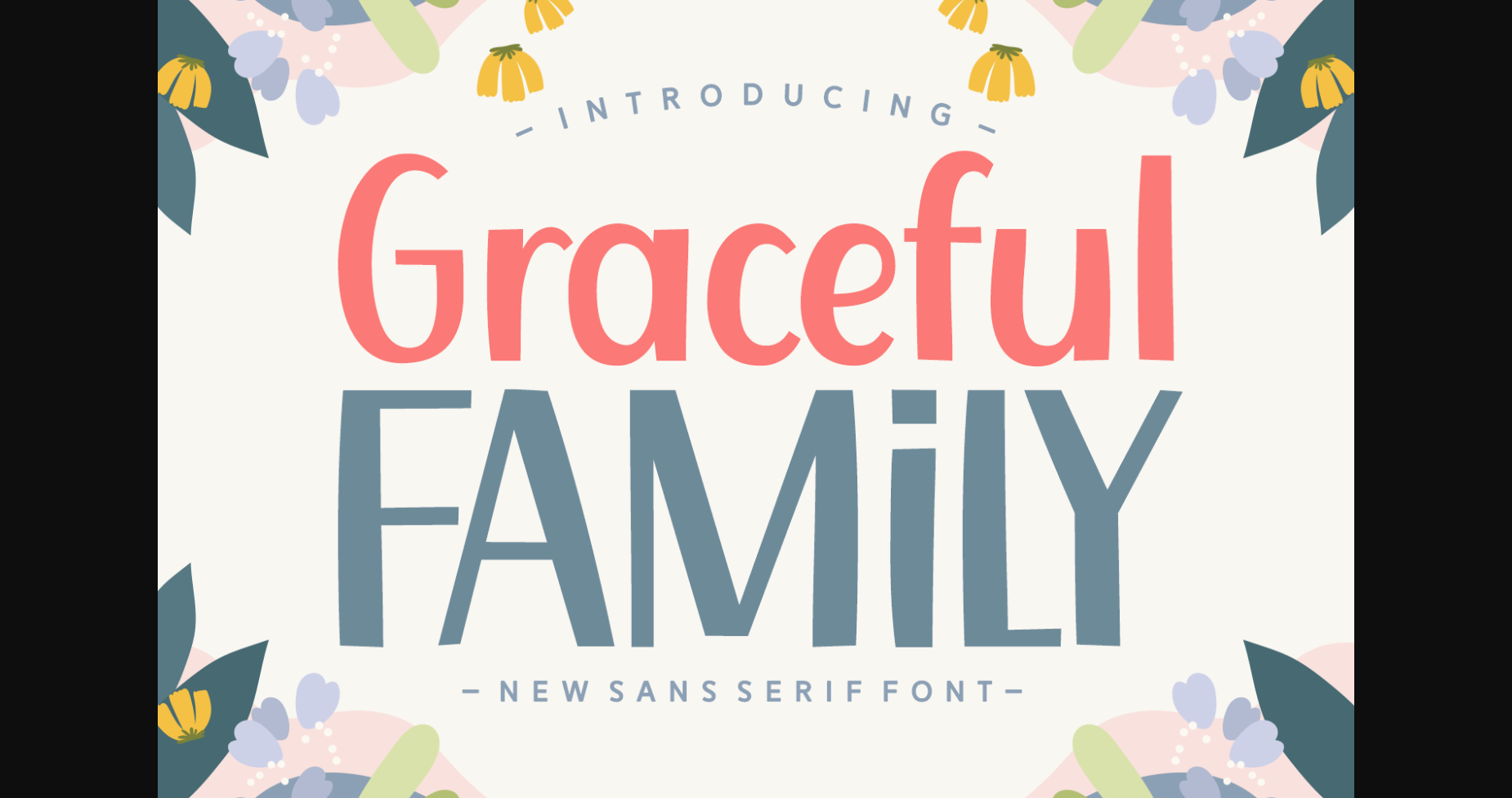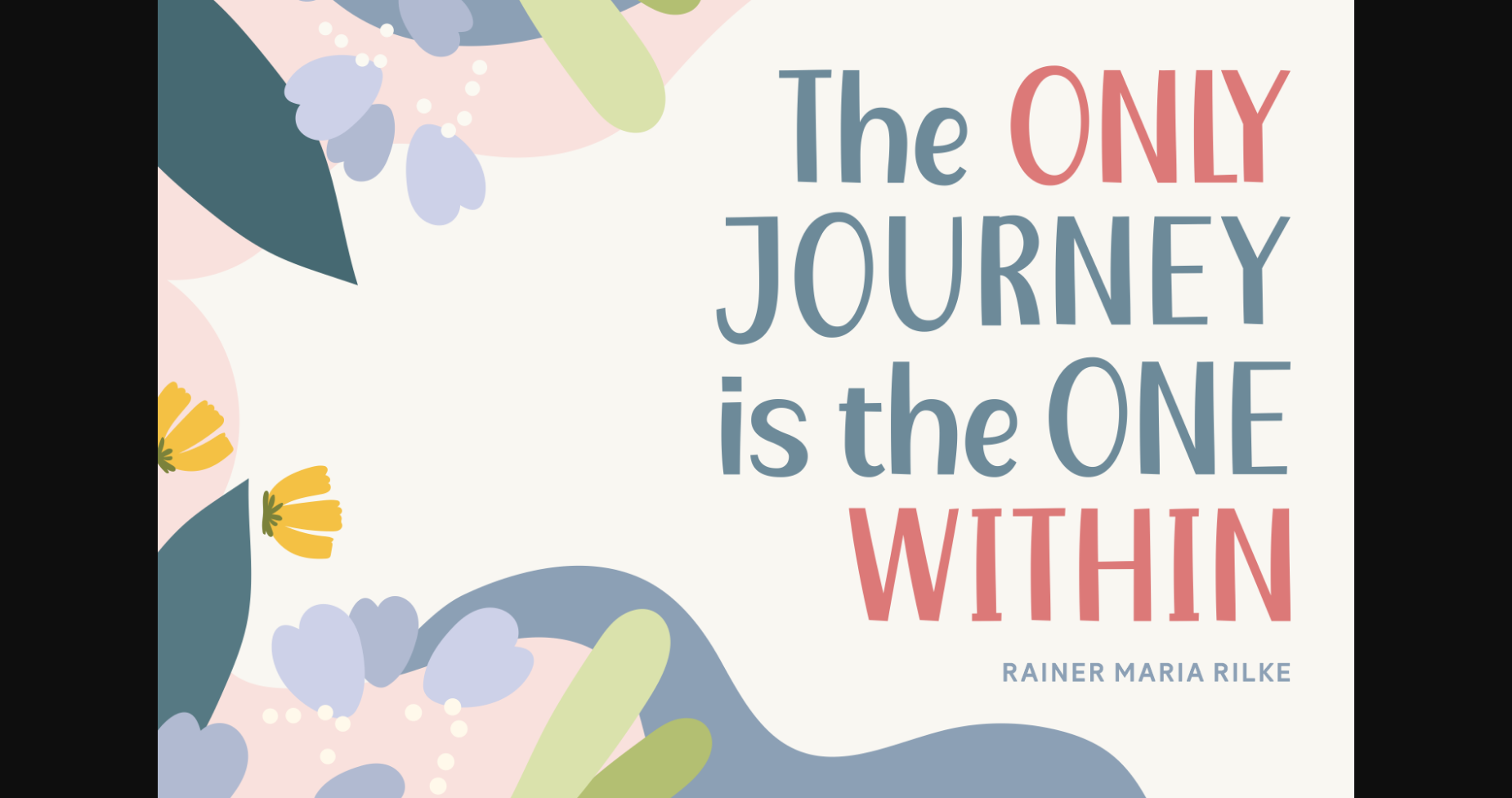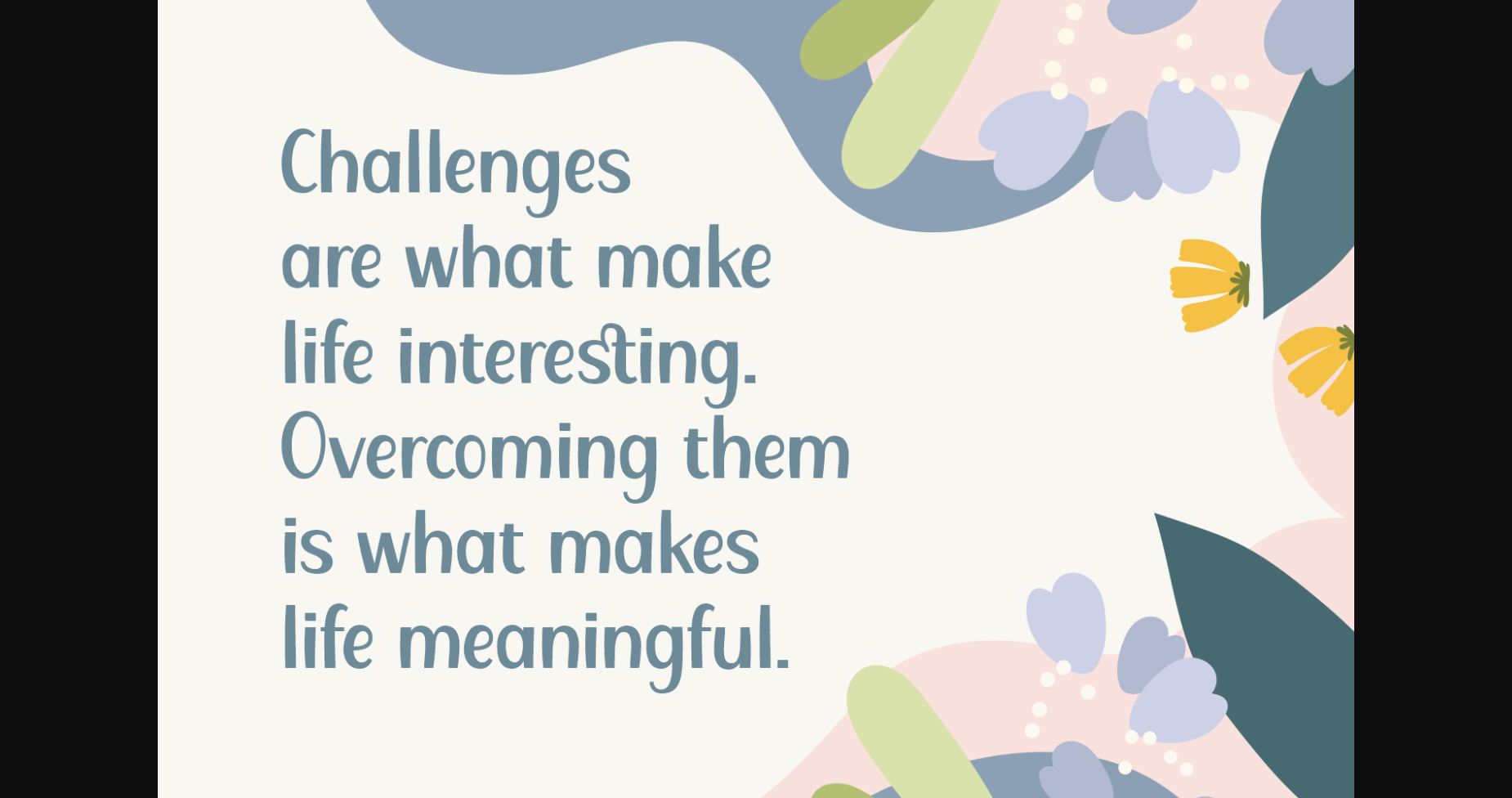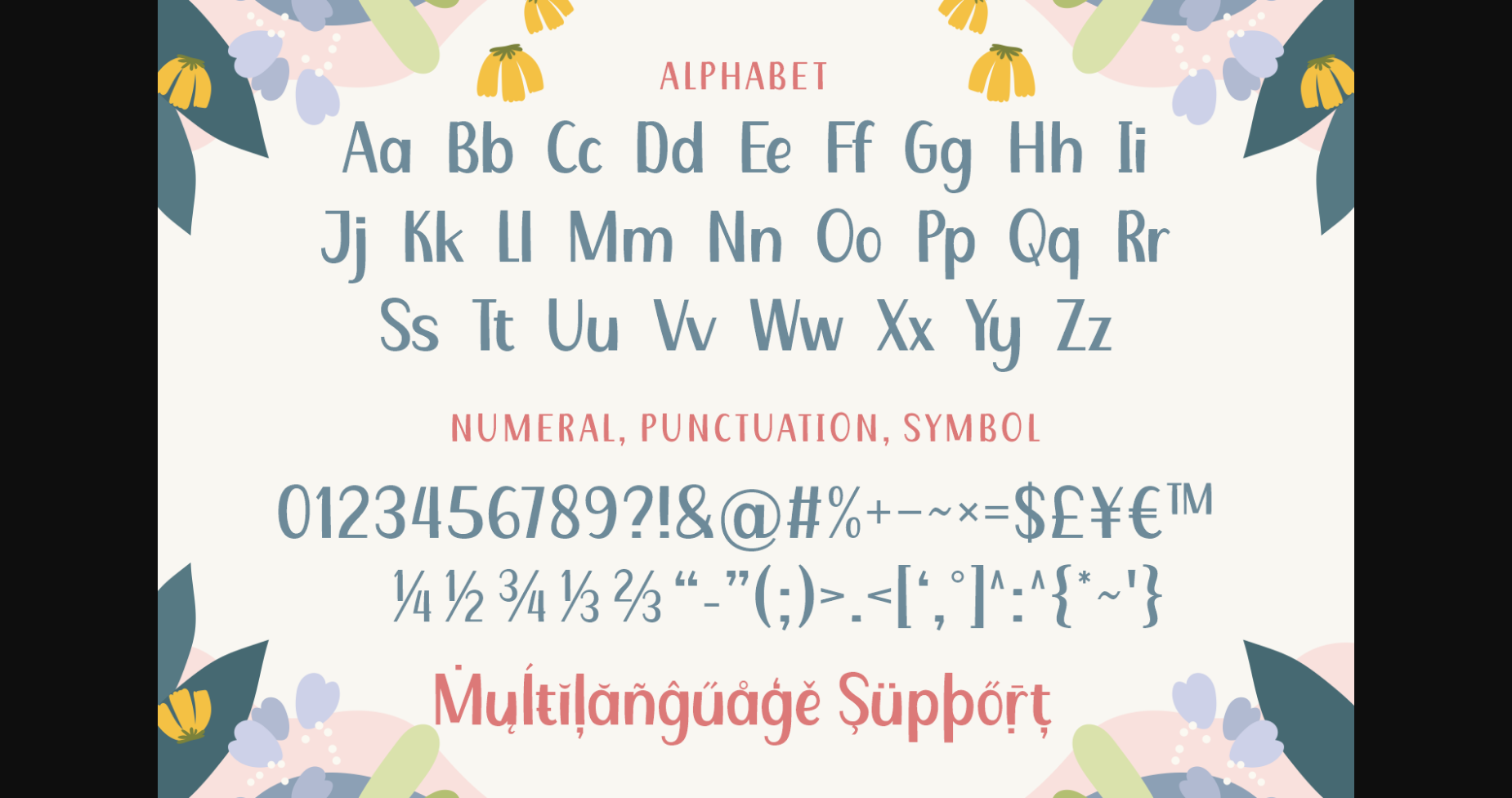
HomeSans Serif FontsGraceful Family Font Sans Serif Fonts Graceful Family Font FacebookXPinterestWhatsApp 1 of 6 ... Graceful Family Font Poster 2... Graceful Family Font Poster 3... Graceful Family Font Poster 4... Graceful Family Font Poster 5... Graceful Family Font Poster 6... About Graceful Family Font Graceful family is a simple and versatile san serif font. This typeface is an excellent staple to have in your library for crafts, prints, digital designs, and more! DOWNLOAD NOW People also explored Happy Monday Font Candy Font House Font Oldblues Font The Spring Font YWFT Soaka Hysteria Santa Morton Font Celline Fram Font 366 0 TagsGraceful Family Font Previous articleCicada FontNext articleSimple House Font LEAVE A REPLY Cancel reply Comment: Please enter your comment! Name:* Please enter your name here Email:* You have entered an incorrect email address! Please enter your email address here Website: Save my name, email, and website in this browser for the next time I comment. Personal Use Free Dakwart Letter Personal Use Free Read more about this font Unsteady Overseer Personal Use Free Read more about this font Welliana Personal Use Free Read more about this font Boronic Personal Use Free Read more about this font BLOG Using Fonts in Digital Marketing: Tips to Strengthen Your Brand Identity In the realm of digital marketing, every visual element plays a crucial role in shaping a brand's identity, and fonts are no exception. The... How to Cut Any Font on Cricut: Convert a Font to SVG (Free) Best Fonts for T-Shirt Design – Top 2025 Picks Free vs Paid Fonts: Why Investing in Premium Fonts Is Worth It